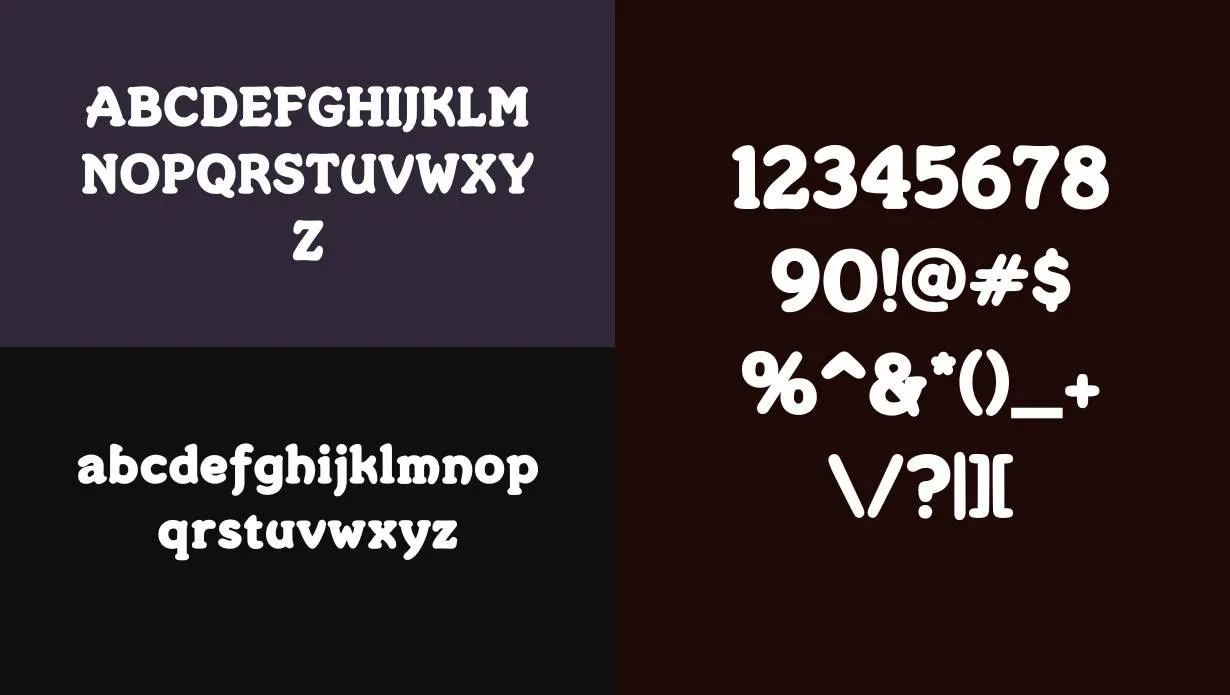
Merkin Font is a playful and decorative typeface that brings a whimsical and imaginative vibe to design projects.
It’s often used in children’s books, party invitations, and creative branding, adding a touch of creativity and charm to the visuals.
The font’s unique and quirky letterforms add an element of fun and creativity to your design work.